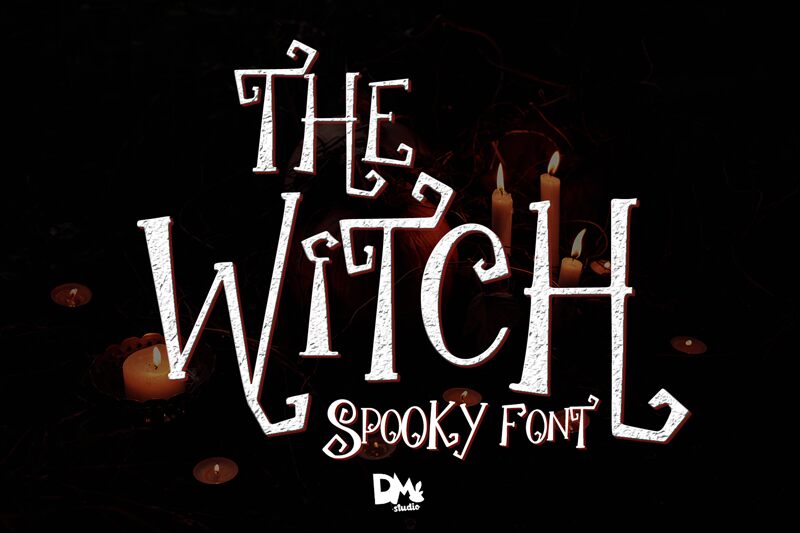
The Witch Spooky Font, designed by Dm Letter Studio - Dimas Prasetyo, is a haunting and atmospheric typeface perfect for holiday projects. Its semi-light weight and twisted letterforms capture the eerie and mystical aura of witchcraft and the supernatural.
Whether you're working on Halloween-themed designs, horror movie posters, or event invitations, this font adds a touch of mystique and spookiness to any project. Embodying the dark, mystical design that is synonymous with Halloween, The Witch Spooky Font is ideal for creating an atmosphere of enchantment and intrigue.